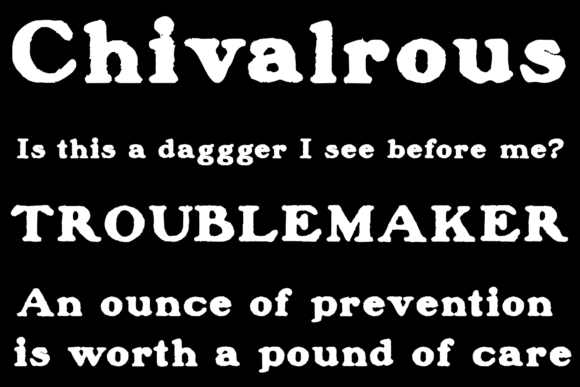
Blanchard Inland Fc Font: A Timeless Classic Reborn
In the world of typography, few fonts have managed to capture the essence of tradition and modern elegance as seamlessly as the Blanchard Inland Fc Font. This meticulously digitized edition of a timeless classic is a testament to the enduring power of great design, blending the best of the past with the precision of modern technology.
A Legacy Born in the Dawn of the 20th Century
The original Blanchard Inland Font was released by the esteemed Inland Type Foundry at the beginning of the 20th century. This period marked a significant era in the history of typography, with various foundries competing to create fonts that would stand the test of time. The Inland Type Foundry, known for its commitment to quality and innovation, contributed significantly to this legacy with the introduction of the Blanchard Inland Font.
The font was designed to embody the characteristics of its time while offering something unique and distinct. Its creation was a response to the evolving needs of printers and designers, who sought typefaces that could deliver both clarity and beauty. The Blanchard Inland Font quickly gained popularity for its readability, elegance, and versatility, making it a go-to choice for a wide range of applications, from newspapers and magazines to advertising and packaging.
Reimagining Tradition for the Digital Age
Fast-forward to the present day, and the Blanchard Inland Fc Font has been meticulously digitized, bringing its classic charm to the digital realm. This process involves more than just converting the font into a digital format; it’s about reimagining a historical typeface in a way that it can seamlessly integrate into contemporary design aesthetics.
The digitization of the Blanchard Inland Font required a deep understanding of its original design principles, combined with the application of modern digital tools. Each character was carefully redrawn to ensure that the essence of the original font was preserved, while also making it compatible with today’s digital devices and software. This painstaking process ensures that the Blanchard Inland Fc Font retains its historical integrity while offering the flexibility and precision that modern designers demand.
A Tribute to Centuries-Old Craftsmanship
The Blanchard Inland Fc Font serves as a tribute to centuries-old craftsmanship, demonstrating how traditional typography can be reimagined for the digital age. Its characters unfold a piece of history, with each glyph telling a story of the past. The font’s design reflects the meticulous craftsmanship of early typefounders, who painstakingly cut and cast each letter by hand.
At the same time, the Blanchard Inland Fc Font embodies the spirit of modern design. Its digital precision allows for clear and crisp rendering at any size, making it incredibly versatile for various applications. Whether used in print, digital media, or web design, this font brings a touch of elegance and sophistication, seamlessly bridging the gap between tradition and modernity.
Blanchard Inland Fc Font in Contemporary Design
The Blanchard Inland Fc Font’s fusion of tradition and modern elegance makes it an ideal choice for a wide range of contemporary design applications. Graphic designers, typographers, and artists can leverage this font to add a touch of classic sophistication to their projects. Its readability and aesthetic appeal make it suitable for editorial design, branding, and advertising, where standing out while maintaining professionalism is crucial.
In web design, the Blanchard Inland Fc Font can be used to create visually appealing and user-friendly interfaces. Its digital precision ensures that it looks great on various devices, from desktop computers to mobile phones. Moreover, the font’s unique character set allows designers to experiment with creative typography, adding an extra layer of depth and personality to their designs.
Tips for Using the Blanchard Inland Fc Font
To make the most out of the Blanchard Inland Fc Font, consider the following typography tips:
- Pair it with Modern Fonts: Combine the Blanchard Inland Fc Font with more contemporary typefaces to create a striking contrast that captures attention.
- Experiment with Sizes: Take advantage of the font’s versatility by experimenting with different sizes. This can help in creating visual hierarchies and adding emphasis to key elements.
- Pay Attention to Spacing: Adjust the spacing between letters and lines to enhance readability and achieve the desired aesthetic effect.
- Utilize its Full Character Set: Explore the font’s extensive character set, including ligatures and ornaments, to add a unique touch to your designs.
The Blanchard Inland Fc Font represents a brilliant fusion of tradition and modern elegance, making it a valuable addition to any designer’s toolkit. Its digitized form pays homage to the craftsmanship of the past while embracing the precision and versatility required by contemporary design. By incorporating the Blanchard Inland Fc Font into your projects, you not only gain access to a timeless typeface but also a piece of history that has been reimagined for the digital age.